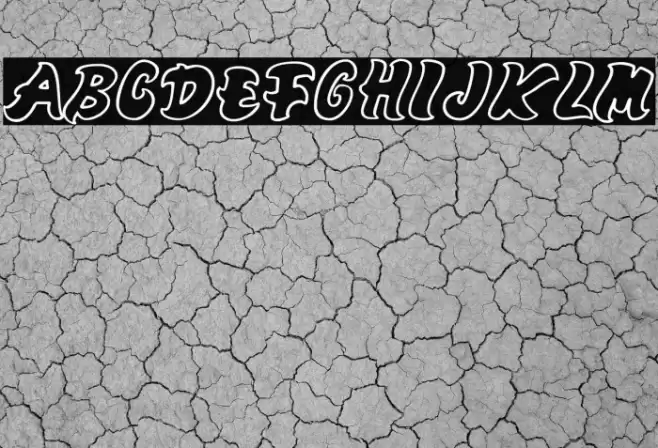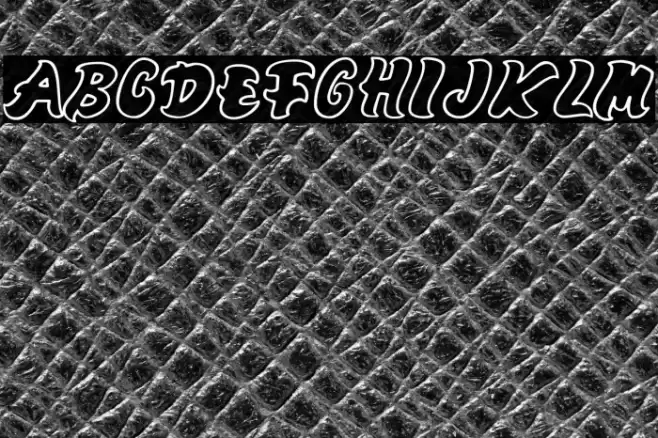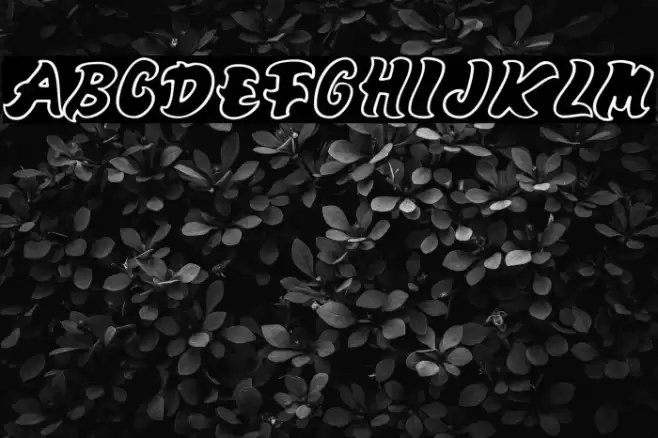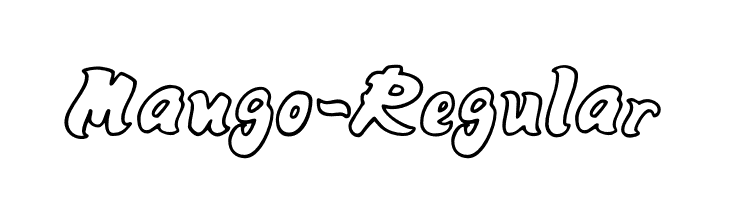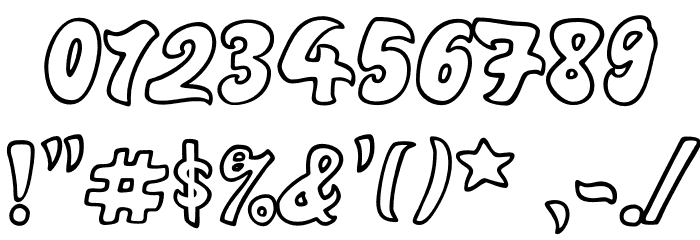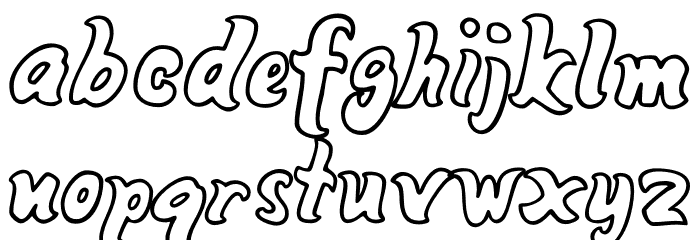
Mango-Regular Font
Mango-Regular Description
This playful and energetic font features bold, rounded characters with a whimsical, hand-drawn style. The letters have a cartoonish appearance, with exaggerated curves and a slightly uneven baseline that adds to its charm. The uppercase and lowercase letters maintain a consistent style, while the numerals and special characters are equally expressive. This font's unique personality makes it ideal for projects that require a fun and informal touch.
A playful, hand-drawn font with bold, rounded characters and a whimsical style from Uncategorized fonts.
- Font: Mango-Regular
- Proposed Projects: Ideal for children's books, comic strips, playful branding, party invitations, and creative posters.
- Overall Style: Playful, Whimsical